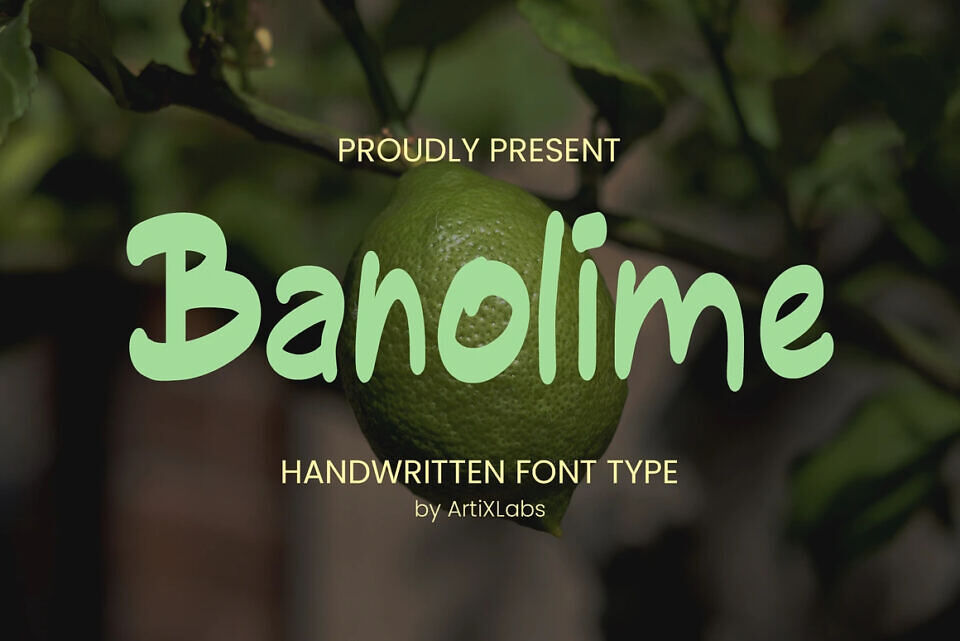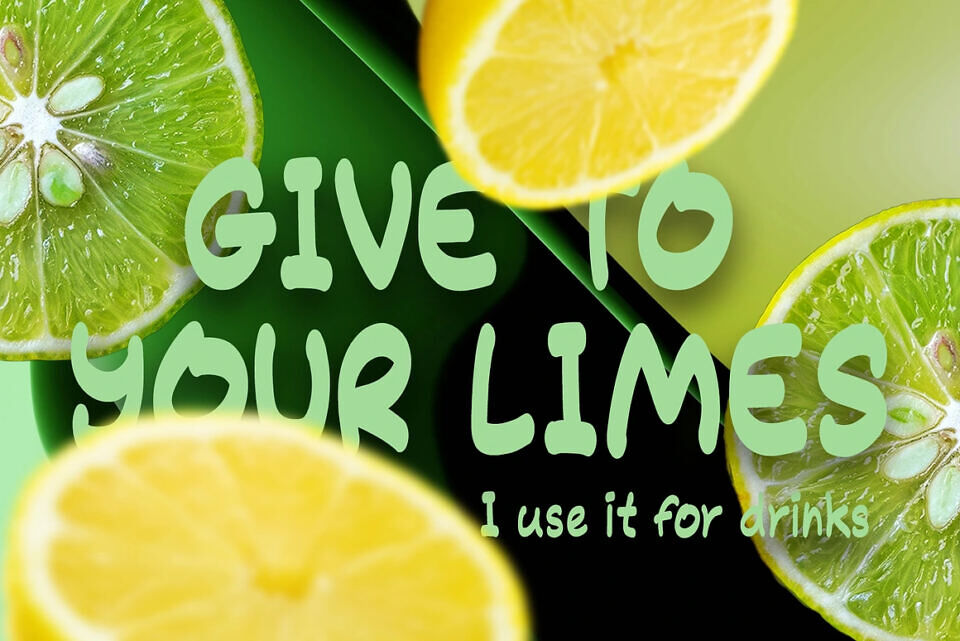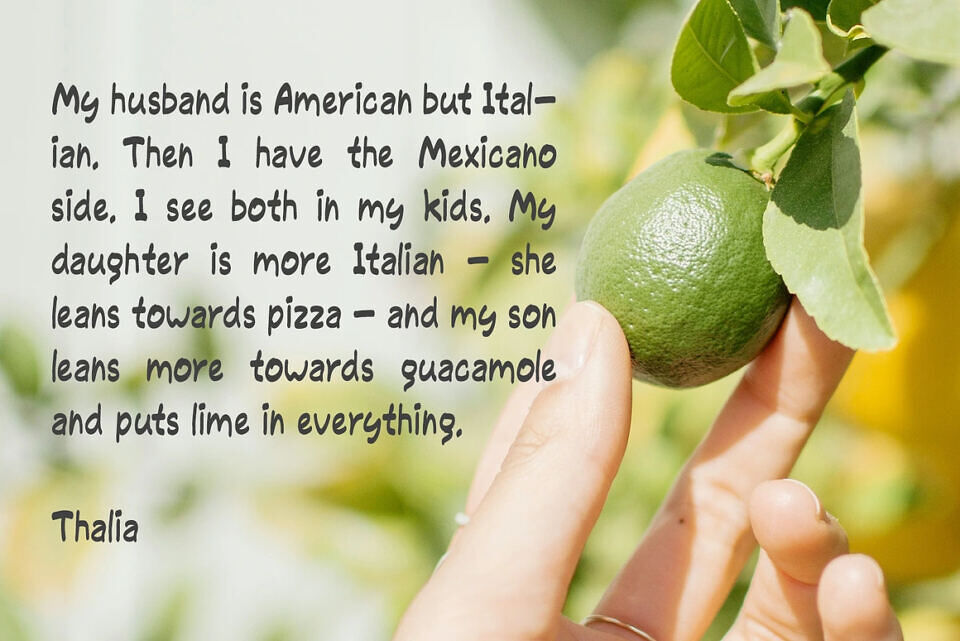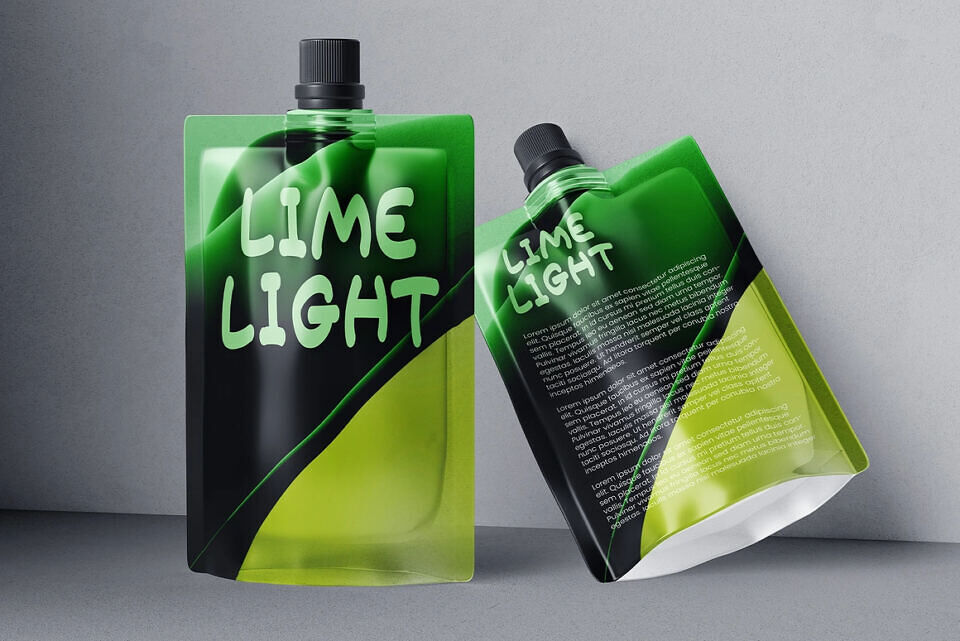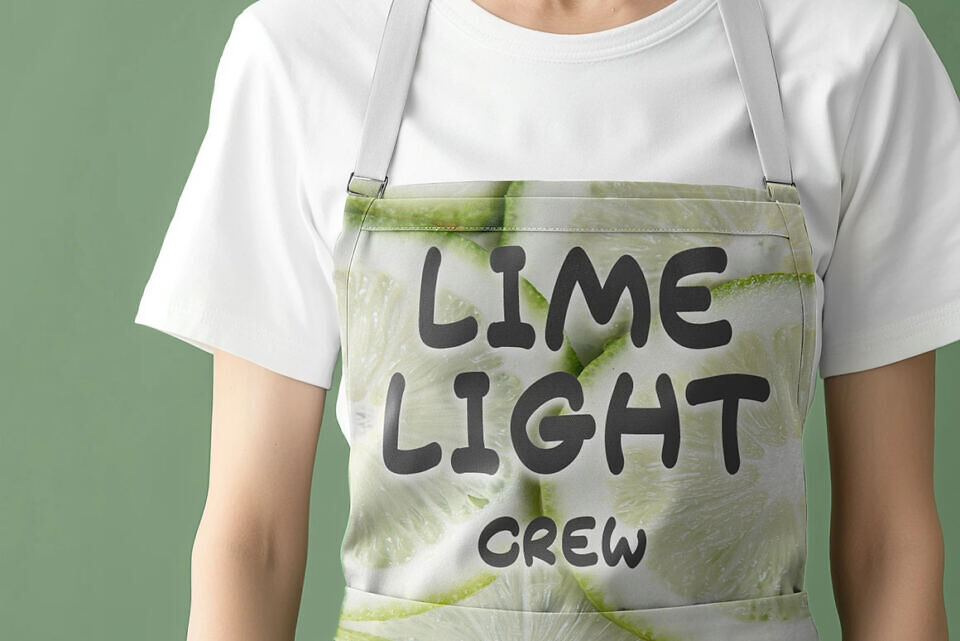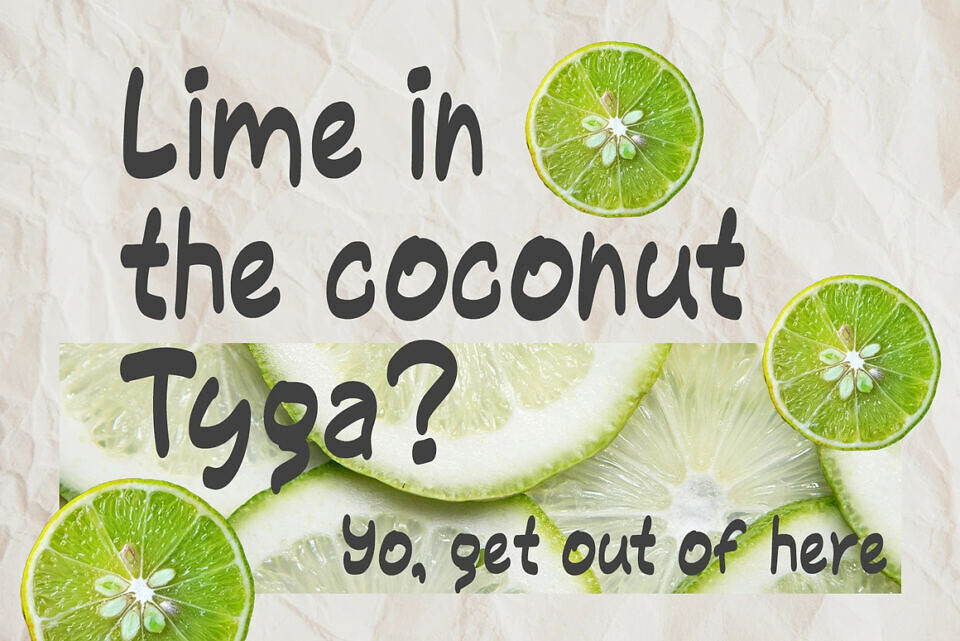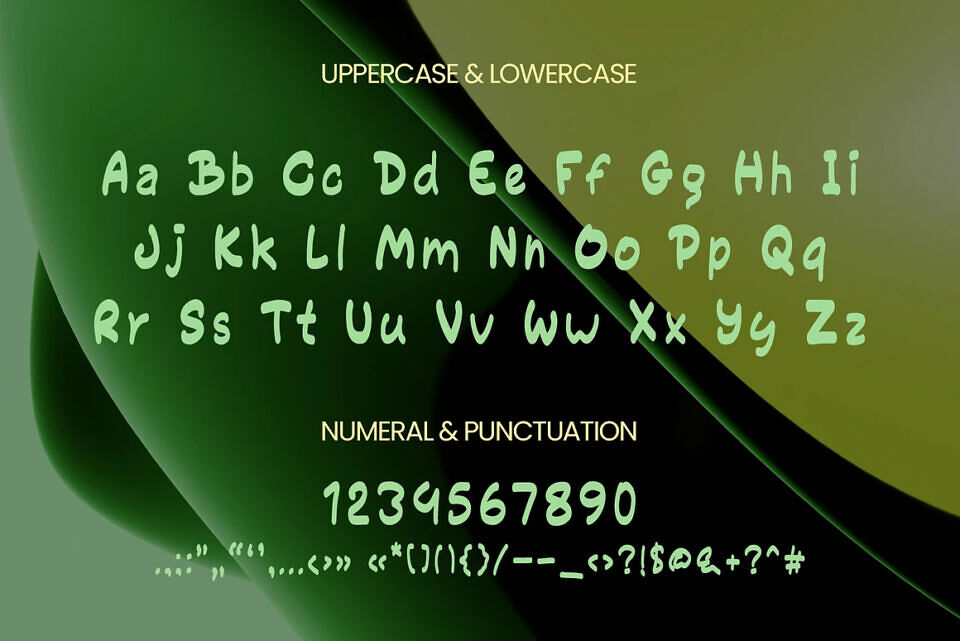
Banolime Font
Banolime is a fresh and playful handwritten font with rounded strokes and a friendly personality. Perfect for logos, packaging, social media, posters, and any project that needs a casual yet eye-catching look.
Its organic shapes and smooth curves make it versatile for both digital and print designs, from modern branding to fun merchandise.